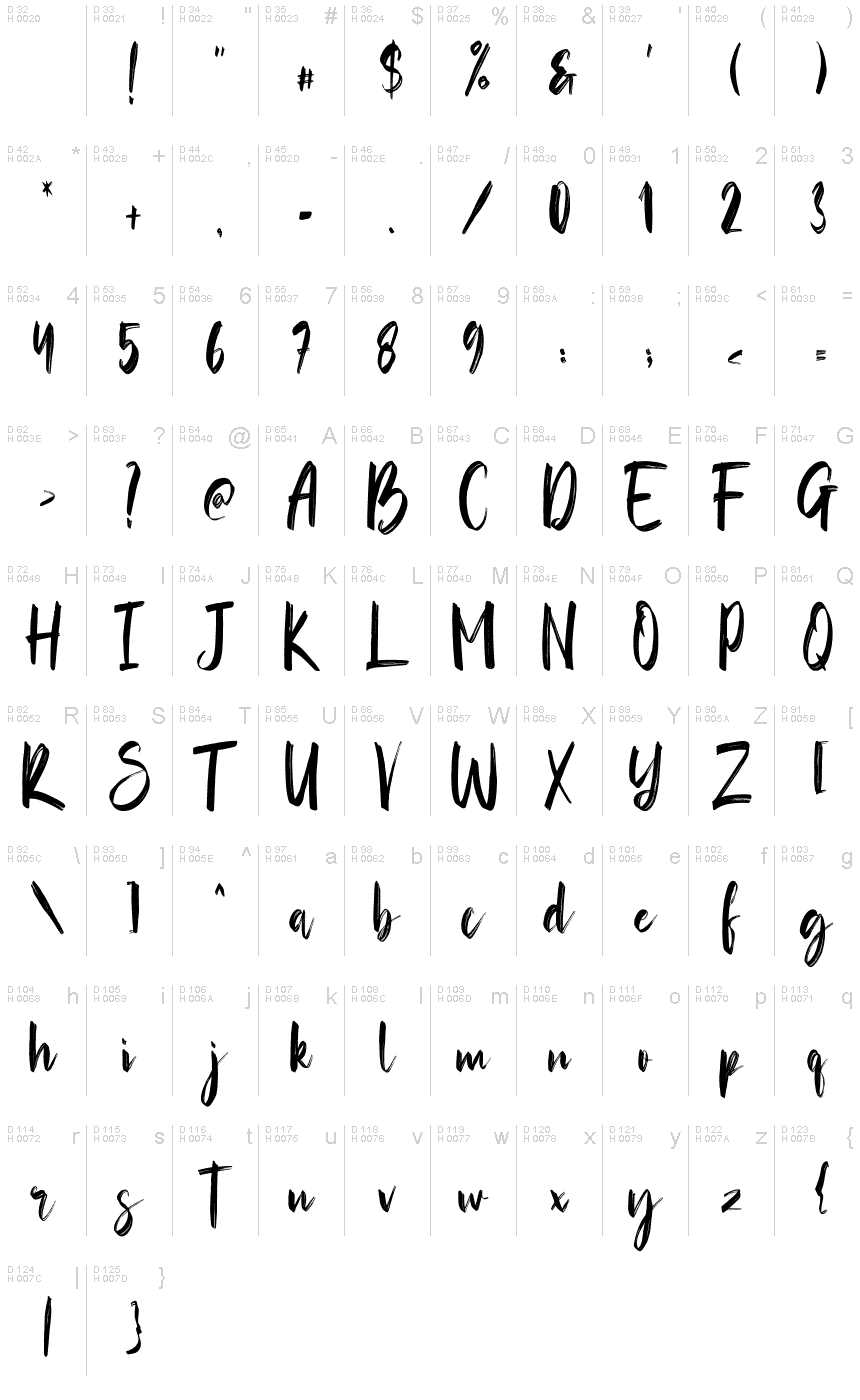
Starstuck
Meet Starstuck, the semi-light, semi-condensed brush font designed by Hatf Type. With its playful strokes and quirky style, this font is perfect for any project that needs a touch of whimsy. Use it for branding projects, packaging designs, social media graphics or even your own personal blog. The semi-light weight makes it easy to read while maintaining its unique character, making it suitable for both digital and print applications. Whether you're designing a poster or creating a logo, Starstuck is sure to leave your audience feeling enchanted and captivated.